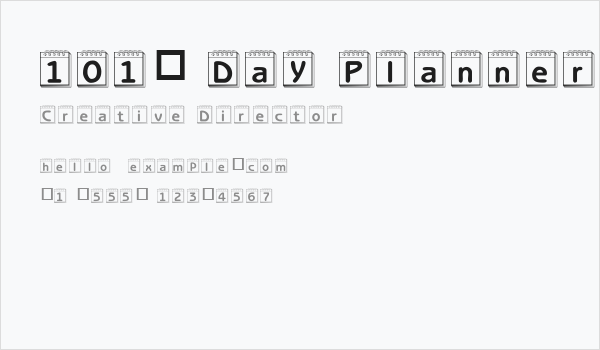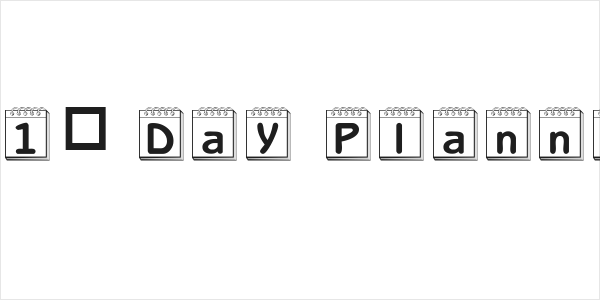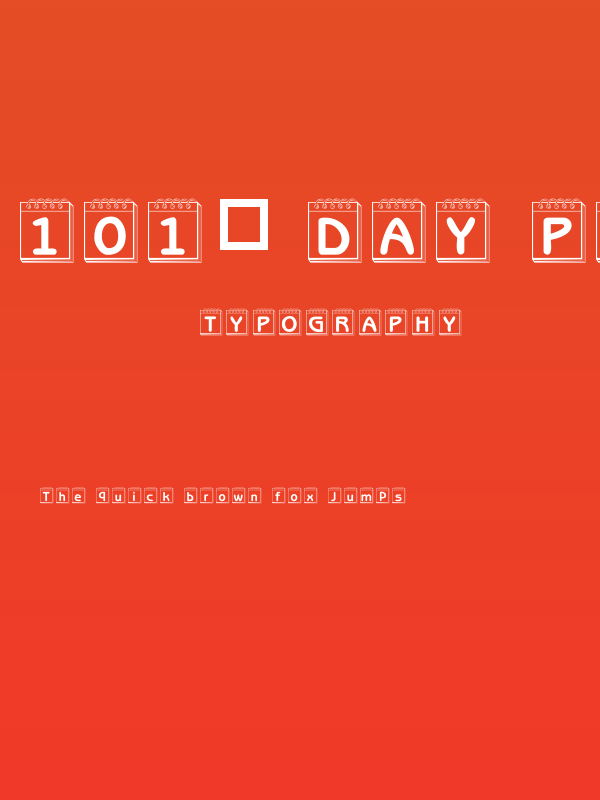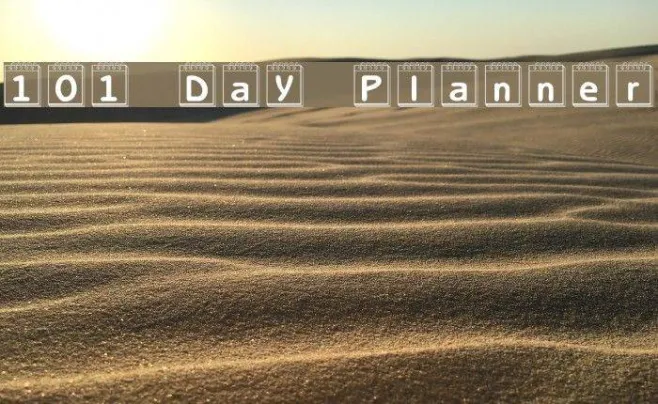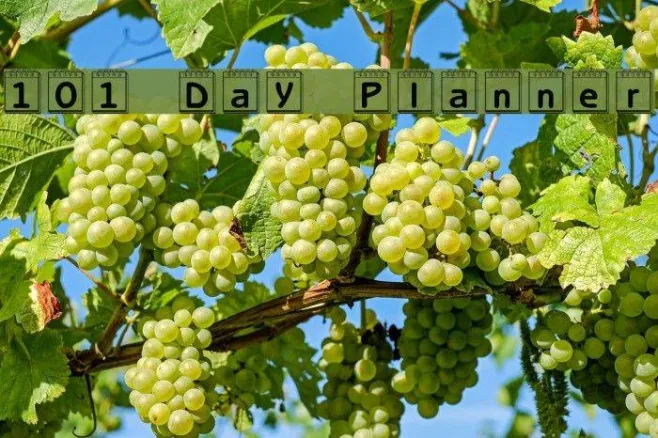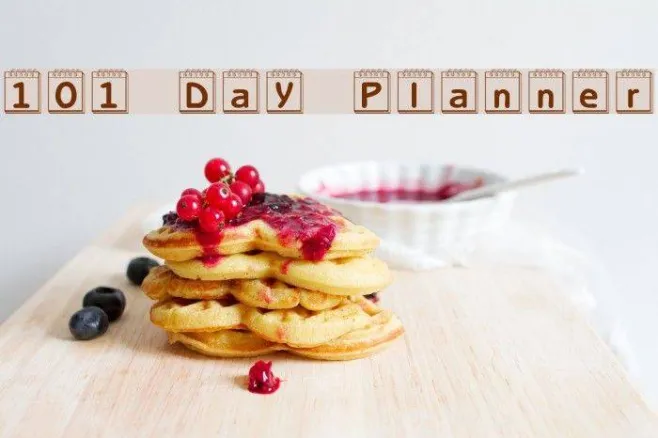
101! Day Planner Font
101! Day Planner Description
This playful and decorative font features characters enclosed in a calendar-like box, giving each letter and number a unique framed appearance. The style is bold and rounded, with a hand-drawn quality that adds a whimsical touch. The uppercase and lowercase letters maintain a consistent design, with slight variations in stroke thickness that contribute to a casual, friendly aesthetic. The numbers follow the same playful theme, making them stand out in any design. This font is ideal for projects that require a fun and engaging look, such as children's books, event posters, or creative planners.
| Proposed Projects | Children's books, event posters, creative planners, educational materials. |